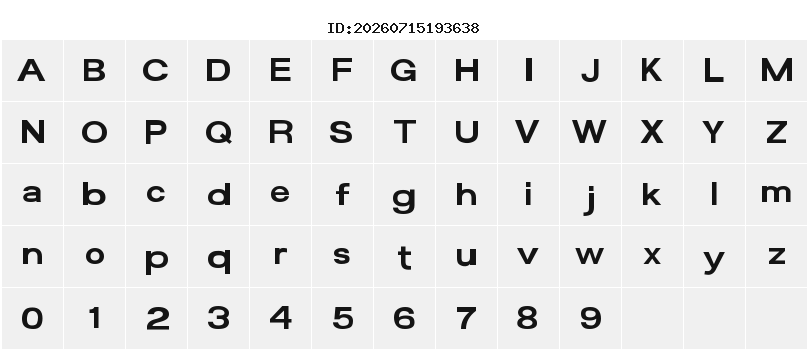
• Font Name: Average Custom
• Full Font Name: Average Custom Regular
• Version: Version 2.70 May 28, 2013, initial release
About Average Custom.ttf
Average Custom.ttf is a modern, elegant sans-serif font designed for ultimate readability and visual harmony. Perfect for branding, headlines, web design, and print materials.